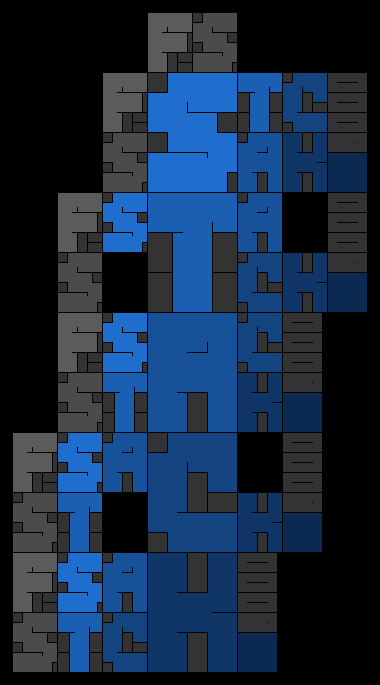
• This fs may be used on it's own, but it is designed to be used in conjunction with fs Stack Overflow so any two letters may be stacked one on top of another to create interesting word shapes and unconventional flow.
It looks simple but the execution was surprisingly involved. The idea was to do the letters in as few bricks as possible. Filters. 1.75...to be exact. Again, the geometry did not work out because custom bricks had to be formed to create the fine breaks and they did not line up with the assumed filter. A little bit of algebra later (yes kids, algebra does help in real life) 1.6 was determined as the proper filter setting.
Having built the letters as desired, with many a tweak before finalization, it was on to Overflow, which necessitated a reduction of the letters in half. That was easier said than done because of the filters. Some of the letters just did not translate exactly at half scale at 1.6 filter. Had to scrap the whole thing.
The only option remaining was to double the size and use the double size glyphs for Stack and move the existing Stack glyphs to Overflow. Doubling allowed finer glyph construction. Plenty of diversions later, what came out as reasonable was a strict following of my own grid. Figures.
This was supposed to be a simple idea with a simple execution. It should not have taken this long. I'm really curious to see how successful the idea was. Here goes...
Fabulous design in your unmistakable style. I guess, the 1.75 filter accounts for the thin gaps between and within the glyphs. I also presume, you wanted to keep the width of gaps the same for the large letters too. At least your nice demo pic suggests that. To avoid a lot of hassle, try the following next time:
1. Create the font with filters, say 1.75
2. Clone it, and change the filter setting to 1.5 - that would result in gaps twice as wide. That's all.
Use the version with double sized gaps at half font size compared to the other version, so as to get the gaps the same width.
Similarly, filters of 1.6, 1.4, and 1.2 result in gaps of double, triple, and quadruple width respectively, where the setting 1.8 is the single width. In that case, you can use the letters at double, triple, and quadruple size (the latter one at 1.8) and still retain the same thin gaps. This method would render the use of such peculiar supplement fonts, as Overflow, redundant. Tell me if it worked for you. 10/10
PS.: I fondly agree with you on the practical use of Ye Olde Algebra.
Look at us! We are nerds! :D
Great! - even if my brain hurts from reading all that maths.
Lovr it - a bit of Bauhaus, a bit of Mondrian...